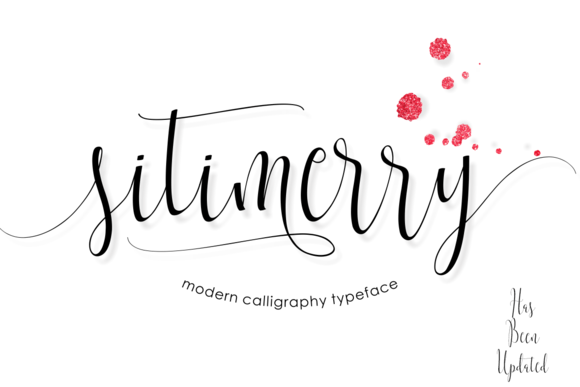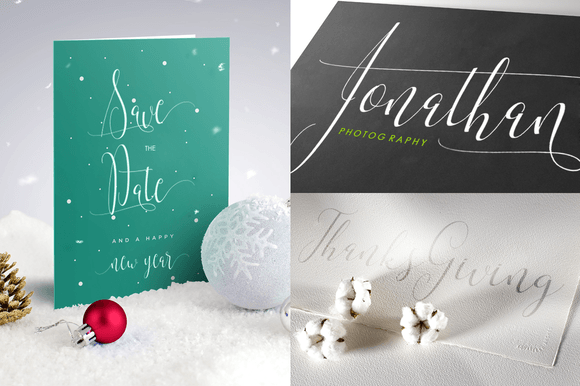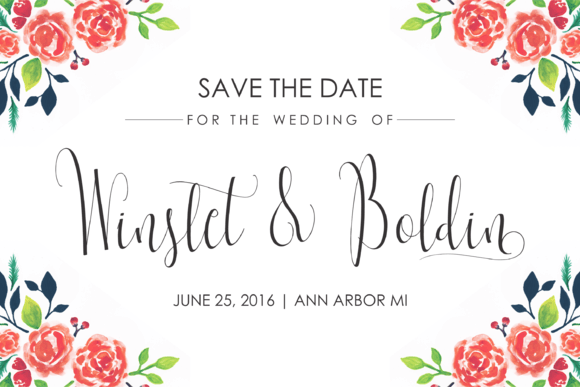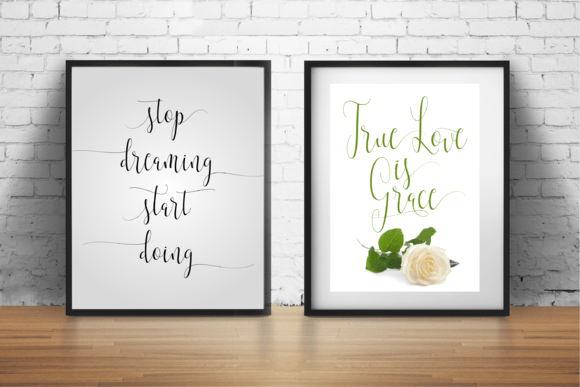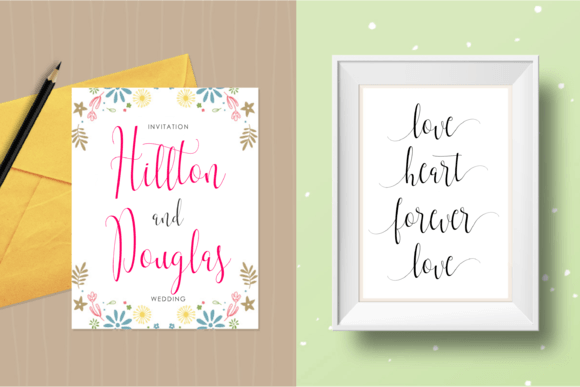
Sitimerry Font
About Sitimerry Font
Sirimerry is a modern calligraphy typeface. It is made by hand and has a smooth and soft shape. It is thin and beautiful like it’s already modeling on the cover of a magazine.
It can be used for various purposes such as gift cards, wedding invitations, branding, posters, labels, logos and a variety of other needs!